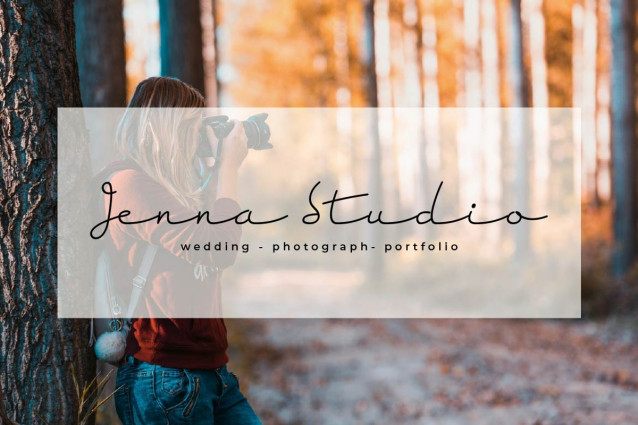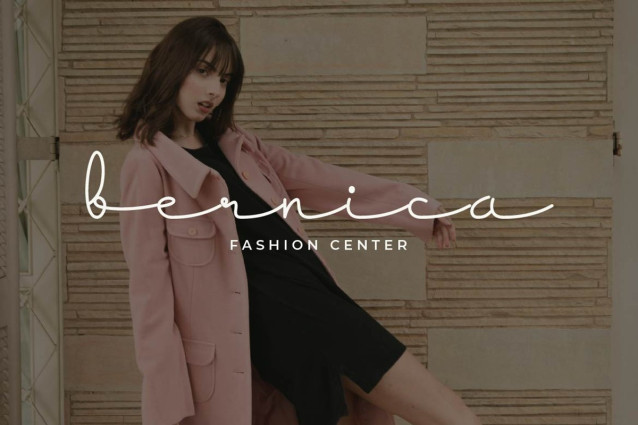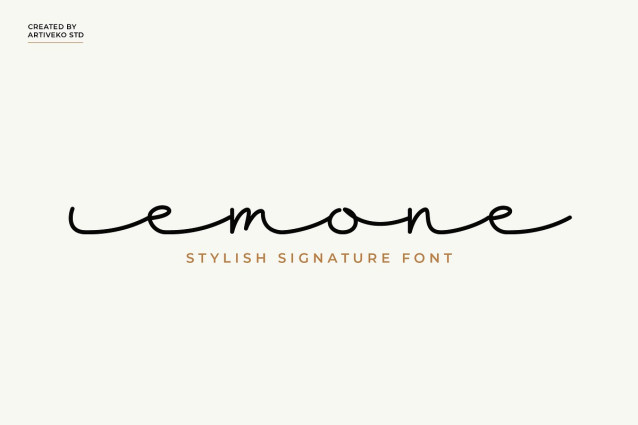
Emone Script Font
Emone Script Font is an elegant handwritten script font designed to bring the beauty of natural handwriting into modern design. With its flowing strokes, smooth curves, and refined signature style, Emone is perfect for personal branding, logo design, wedding invitations, social media graphics, and product packaging that need a personal yet professional touch.
This fonts are great for product logo,wedding card logo, clothing brand logo, Vintage design and much more.